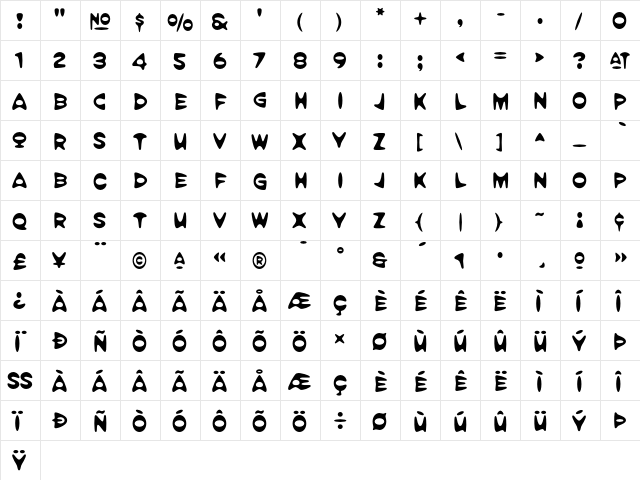
Amorpheus Regular
Design Context for Amorpheus Typeface
Amorpheus is a composed and adaptable typeface that performs quietly and consistently across a wide range of design contexts.